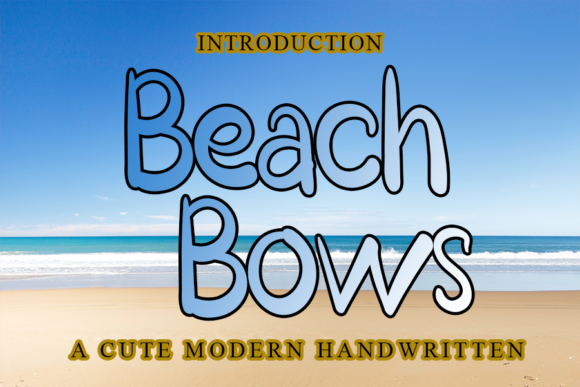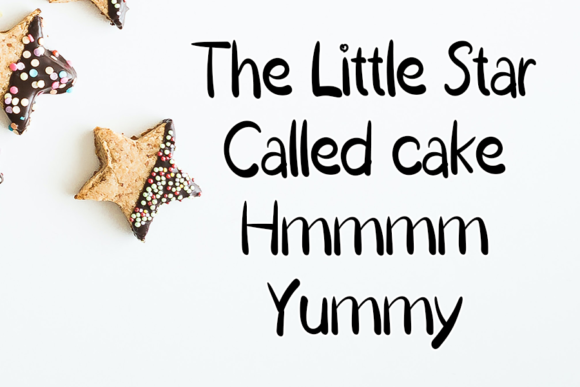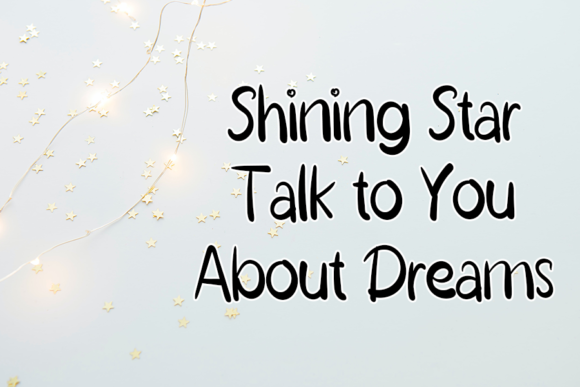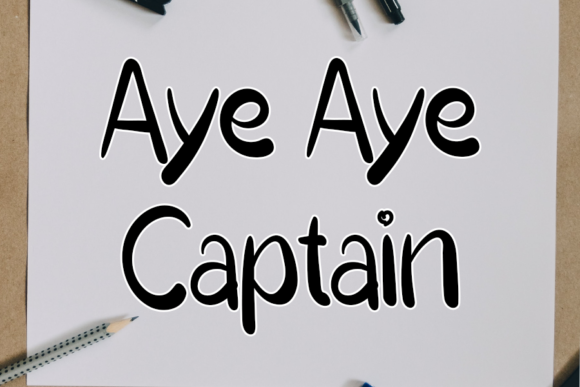
Beach Bows Font
About Beach Bows Font
Beach Bows is a delightful handwritten font that exudes a playful and charming vibe. With its lively characters and bouncing baseline, this font adds a touch of joy and whimsy to your designs.
The bouncy and animated nature of Beach Bows makes it perfect for adding a fun and lighthearted feel to your projects. Whether you’re creating greeting cards, invitations, posters, or any other design that needs a touch of playfulness, Beach Bows will bring a smile to your audience.
The charming style of Beach Bows gives your typography a unique and distinctive look. Each letter has its own personality, with playful curves and flourishes that create a sense of movement and energy. This font captures the essence of carefree and sunny days at the beach, making it a great choice for summer-themed designs or any project that needs a dose of cheerfulness.
With Beach Bows, you can let your creativity run wild. Experiment with different letter combinations, mix upper and lowercase characters, and play with the baseline to create interesting and dynamic compositions. The versatility of Beach Bows allows you to create eye-catching headlines, titles, and decorative elements that stand out from the crowd.
The legibility of Beach Bows ensures that your message is easily readable, even with its playful design. The characters are well-formed and balanced, making them clear and distinct. This makes Beach Bows suitable for a variety of applications, from digital designs to printed materials.
Beach Bows is a font that brings a sense of joy and liveliness to your projects. Its playful and charming style adds personality and character, making it an excellent choice for designs that aim to evoke a light and carefree atmosphere. Whether you’re designing for a beach-themed event, a children’s book, or simply want to infuse your creations with a sense of fun, Beach Bows is the perfect font to enhance your inspired ideas.